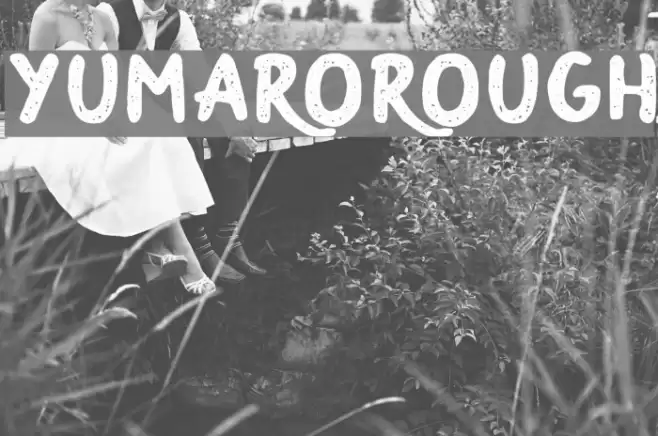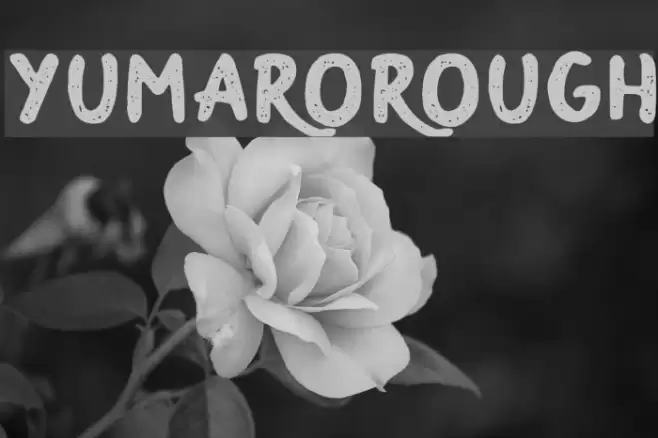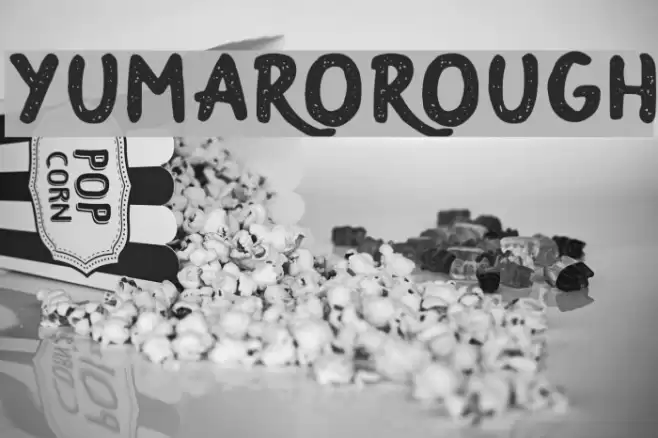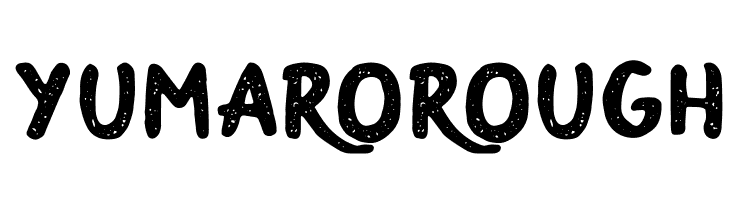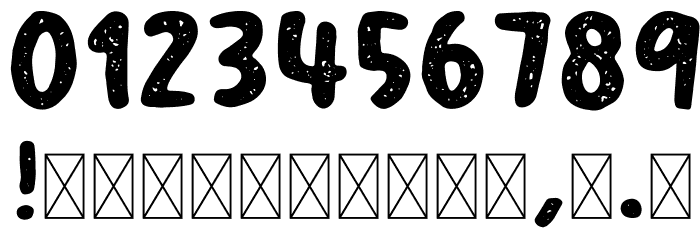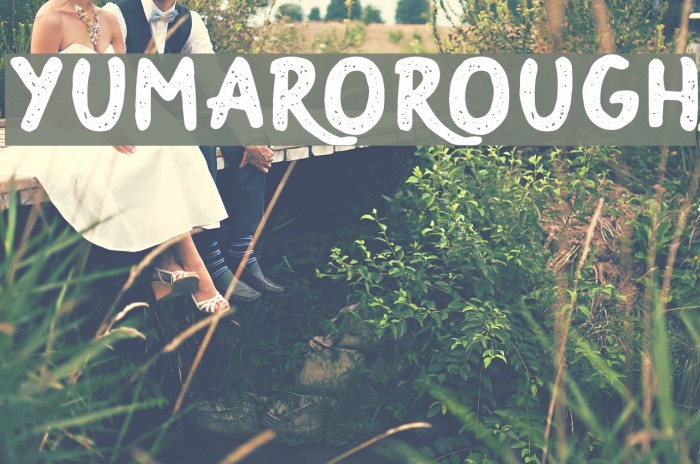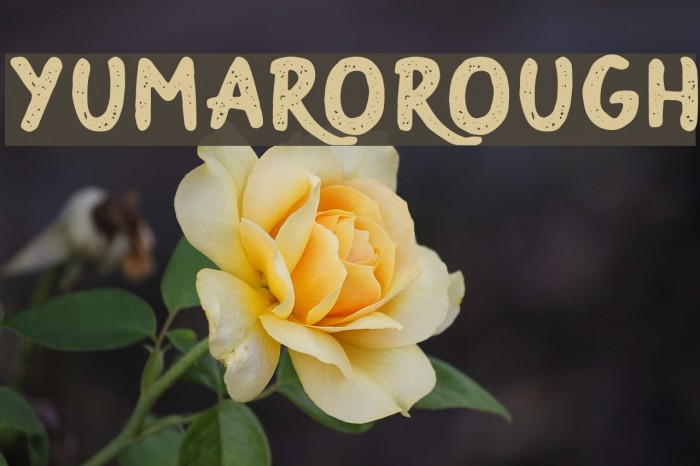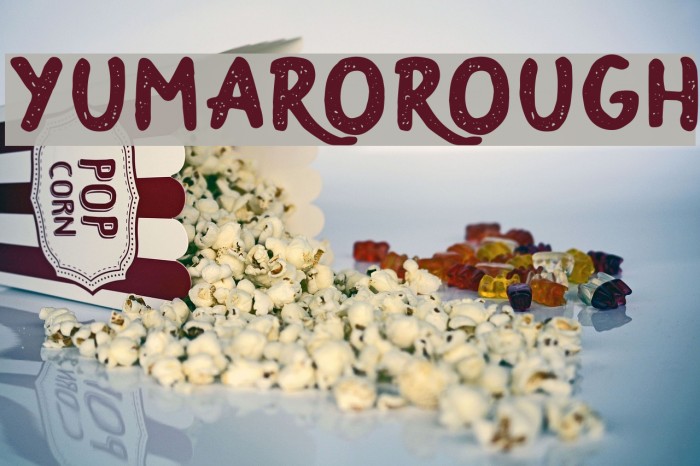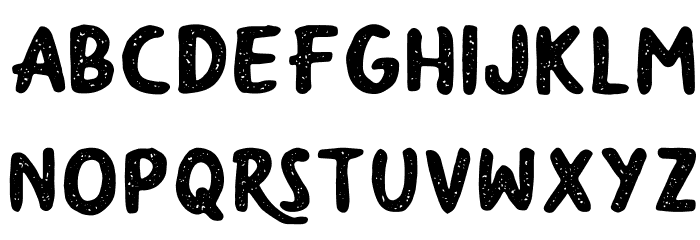
YumaroRough Font
YumaroRough Description
This font features a playful and rough texture, giving it a handcrafted and artistic appearance. The characters are bold and rounded, with a slightly irregular shape that adds to its charm. The texture within each letter resembles a speckled or distressed pattern, making it ideal for designs that require a casual and creative touch. The font maintains a consistent weight throughout, ensuring readability while still offering a unique visual appeal. Its style is reminiscent of hand-drawn lettering, perfect for projects that aim to convey a sense of fun and individuality.
A playful, rough-textured font with a handcrafted, artistic look from Uncategorized fonts.
- Proposed Projects: Ideal for children's book covers, playful posters, creative branding, and DIY-themed projects.